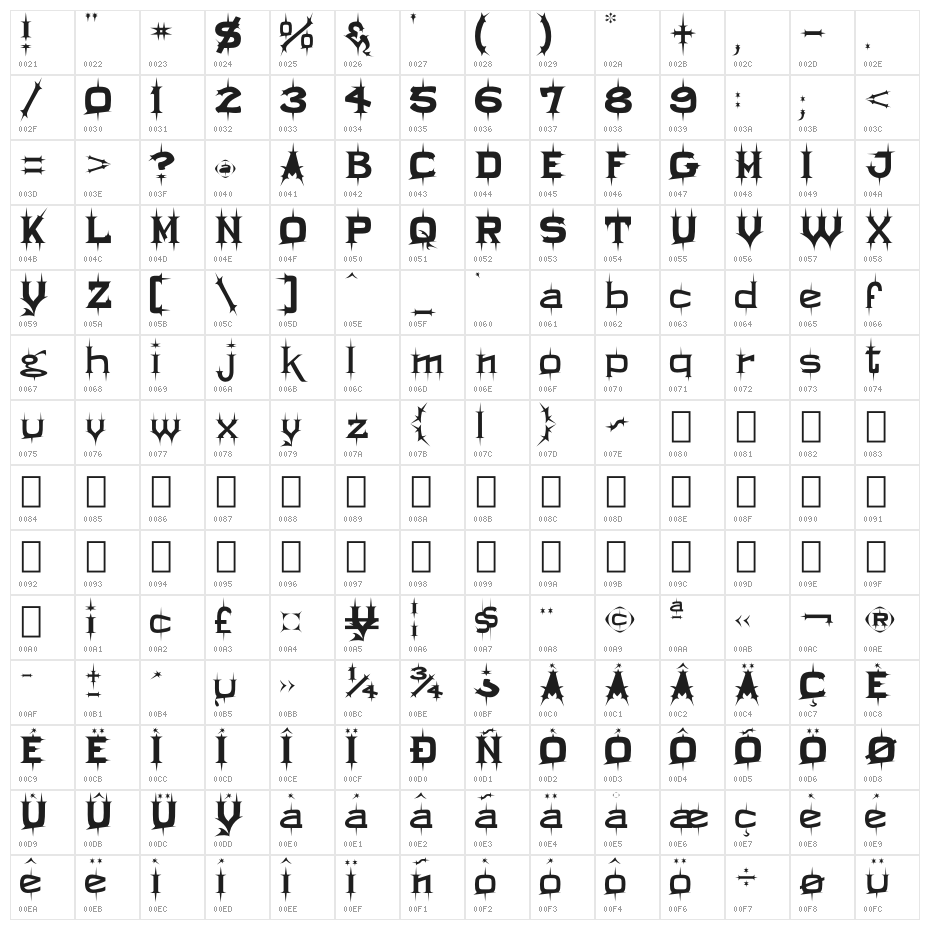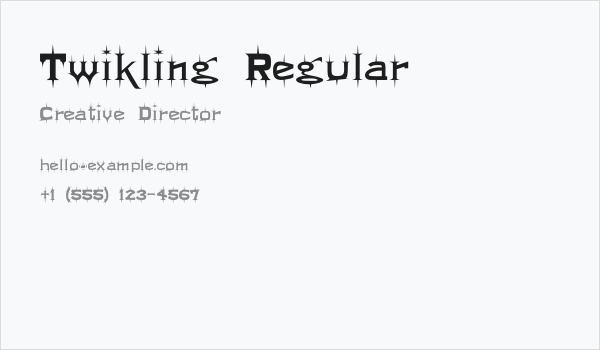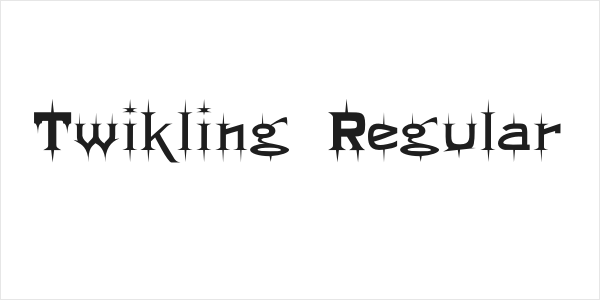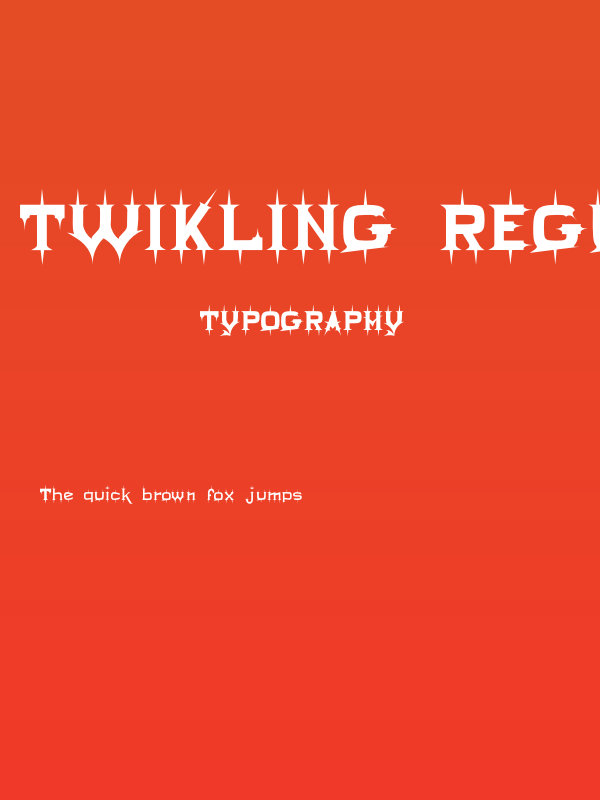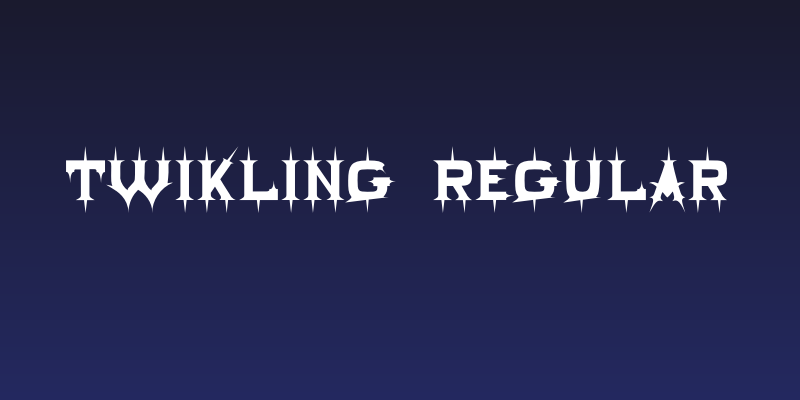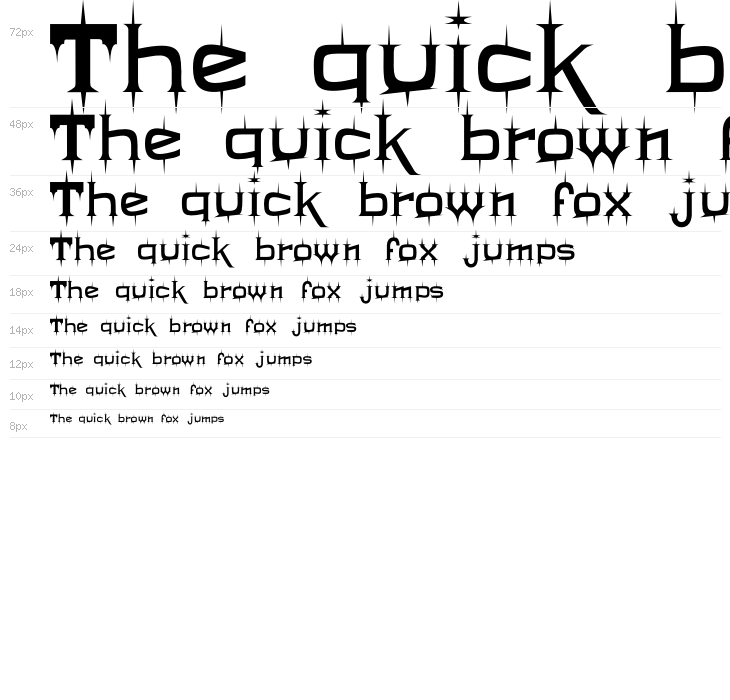
Twikling Regular Font
Twikling Regular Description
This font features a striking and edgy design, characterized by sharp, pointed serifs and a bold, dramatic appearance. The letters are crafted with a unique style that combines elements of gothic and modern design, making it stand out with its spiky embellishments. The uppercase and lowercase letters maintain a consistent theme, with angular strokes and a sense of movement. Numbers and special characters follow the same aesthetic, ensuring a cohesive look across all elements. This font is ideal for projects that require a bold statement and a touch of rebellious flair.
| Overall Style | Modern Gothic |
| Proposed Projects | Perfect for album covers, posters, branding for edgy products, or any design needing a dramatic flair. |